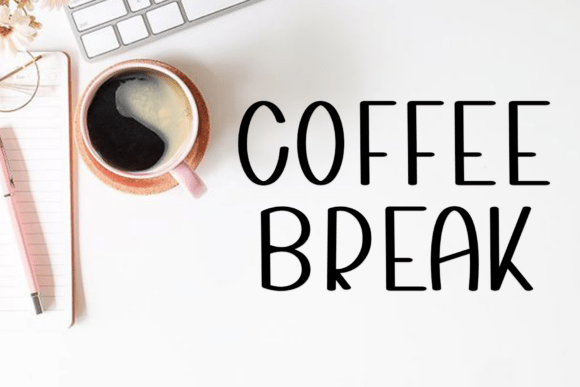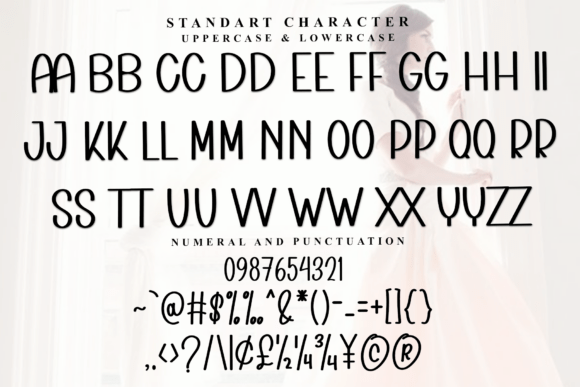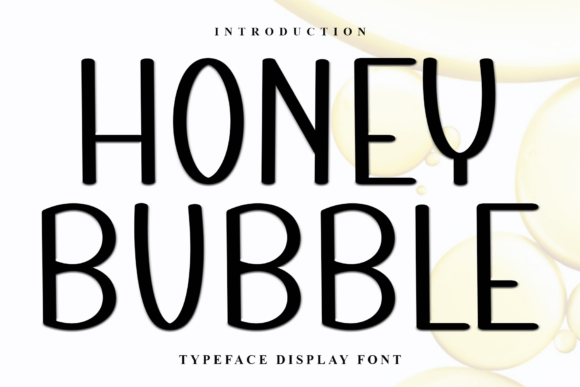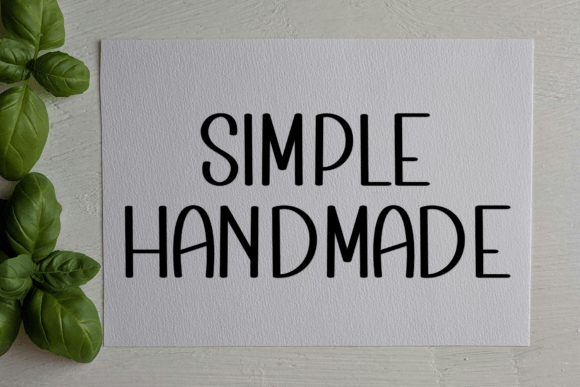
Honey Bubble Font: A Cute Display Font for Playful Designs
About the Honey Bubble Font
Elevate your designs with Honey Bubble Font, a font that combines sophistication with readability. Honey Bubble is a casual and creative font that exudes warmth and friendliness. Its round, playful strokes create a relaxed and approachable feel, perfect for personal projects, invitations, and social media graphics. The font’s charming, hand-drawn aesthetic adds a fun and unique touch to any design.
Honey Bubble thrives in applications requiring a lighthearted and approachable feel. It’s ideal for headlines, short-form text on invitations, social media posts, and packaging for products aimed at a younger demographic or those emphasizing fun and approachability. Avoid using it for large bodies of text or UI elements where readability is paramount; its casual nature can hinder legibility in extended use.
The font’s friendly, almost childlike personality pairs well with clean sans-serif fonts like Open Sans or Lato for a balanced contrast, or a more geometric sans-serif such as Futura for a modern twist. For a slightly more sophisticated look, consider pairing it with a classic serif like Garamond or a delicate script font like Great Vibes, provided the script is used sparingly as an accent.
Honey Bubble’s overall personality is best described as playful and friendly, conveying a sense of warmth and approachability. Its informal style is not suitable for projects requiring a formal or serious tone.